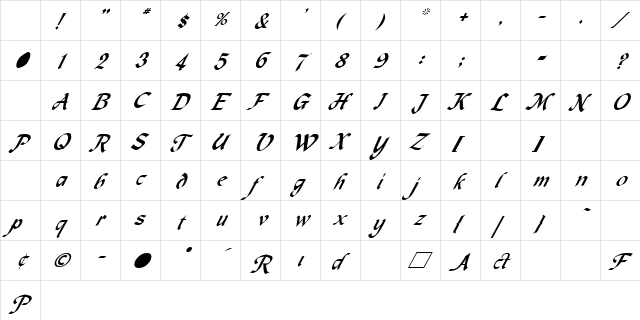
MacHumaine is a composed and adaptable typeface that performs quietly and consistently across a wide range of design contexts. The slanted form adds forward momentum and visual energy.